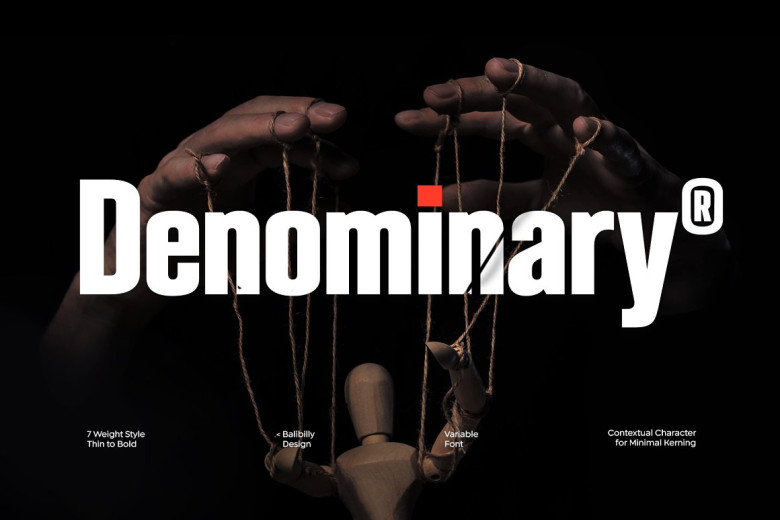
Denominary Font
Denominary Sans-Serif font is all about precision, beauty and refinement. Hand crafted with exquisite care by creative professionals who appreciate quality and distinction. Denominary stands out from other typefaces with its contextual auto-active alternates feature that sets it apart.
Our font engineer designed this feature to automatically minimize kerning between characters, making it very user-friendly and suitable for web applications where kerning minimization means smaller font sizes. Furthermore, this feature also automatically adjusts kerning depending on which characters are being used.
Contextual Alternates can help create more symmetrical typography. Letterforms were designed by considering contrast and white space to achieve natural vocalization.
Denominary Sans Serif Font